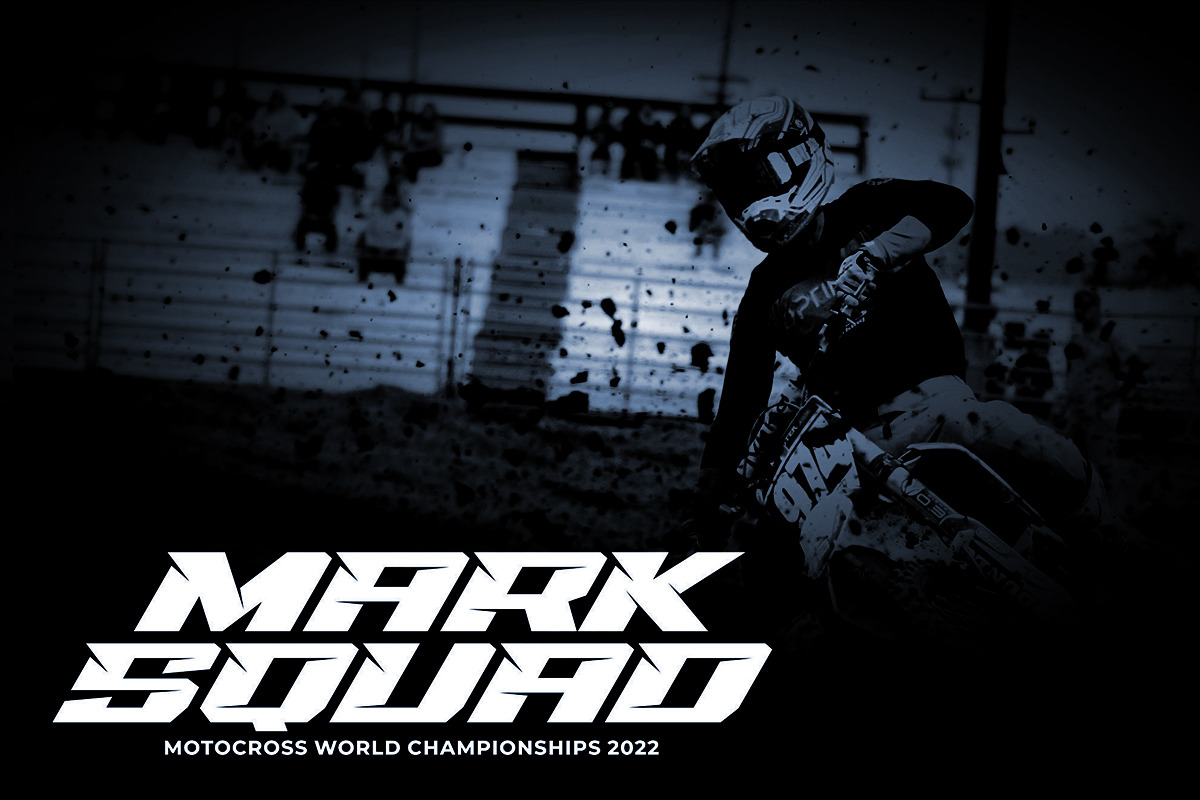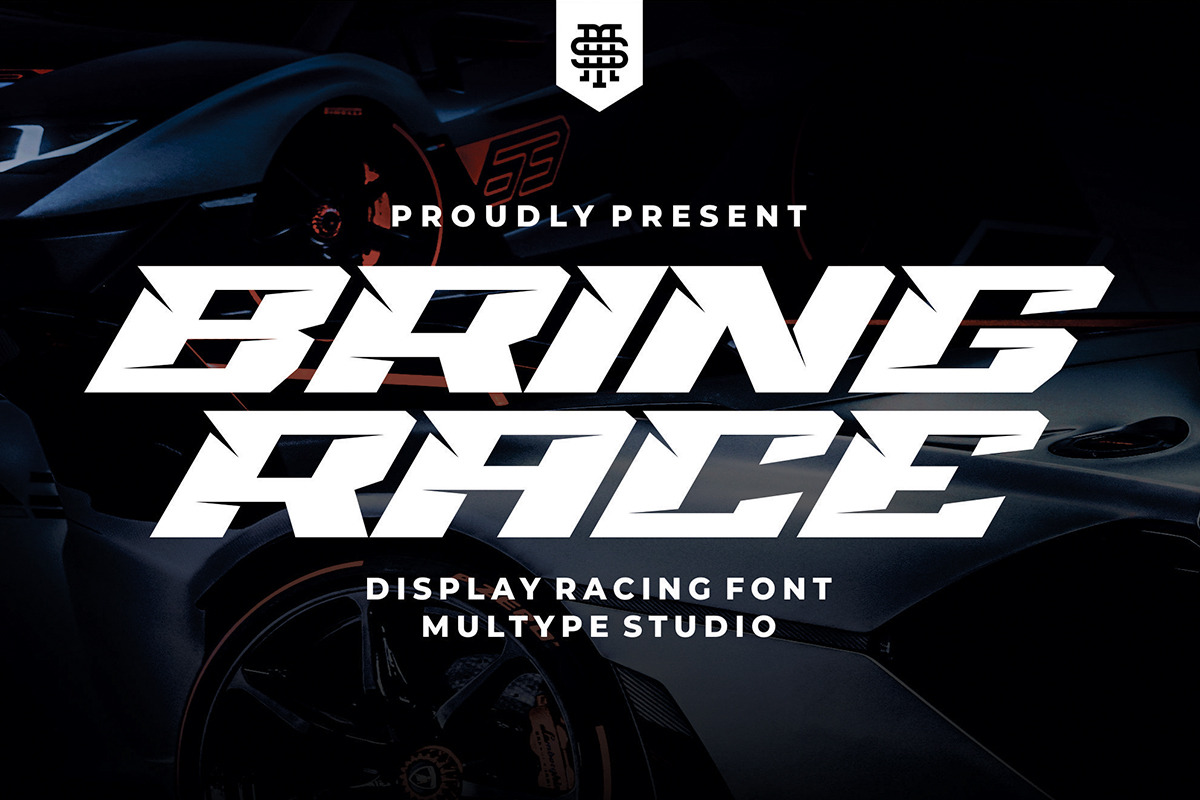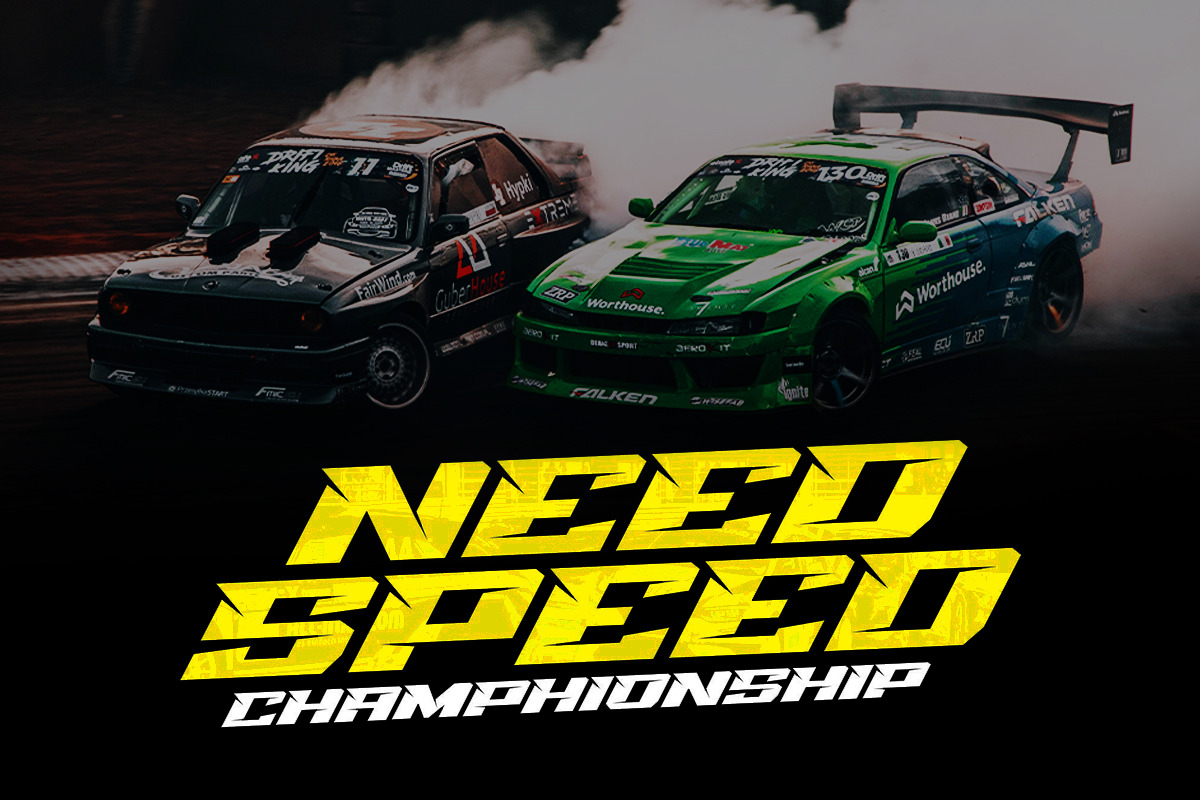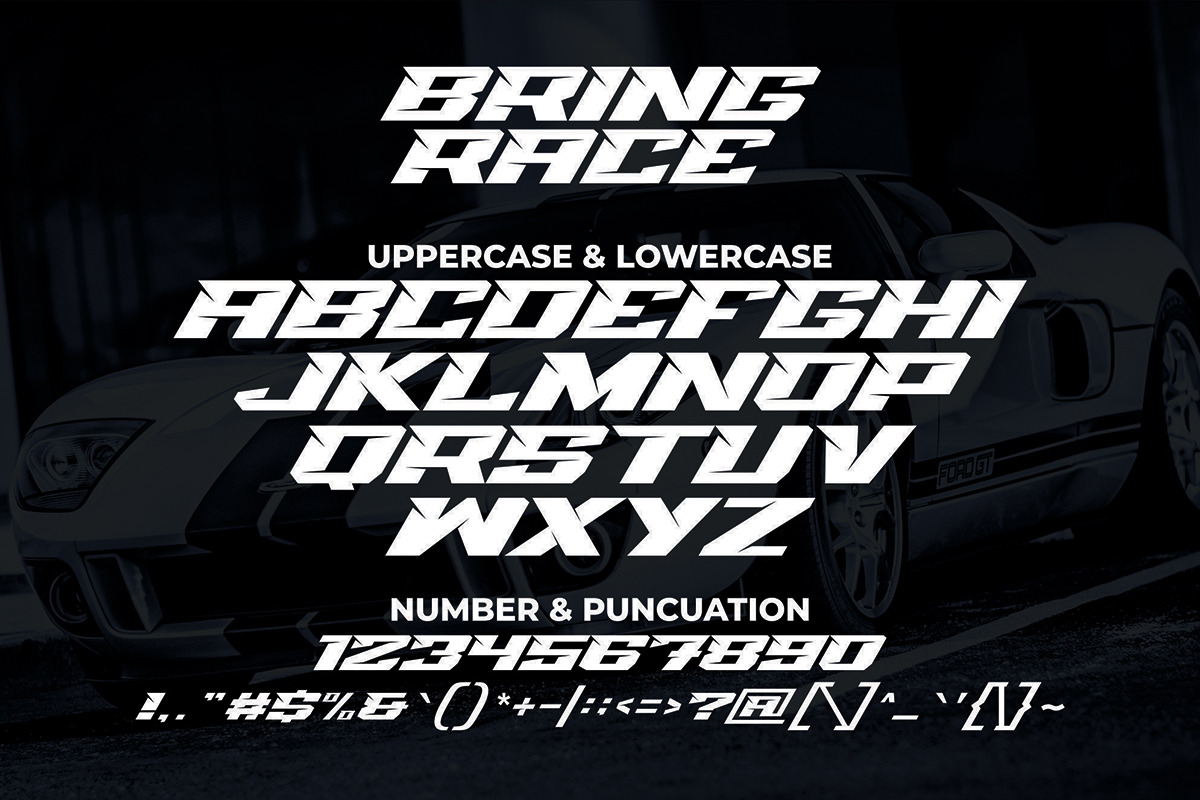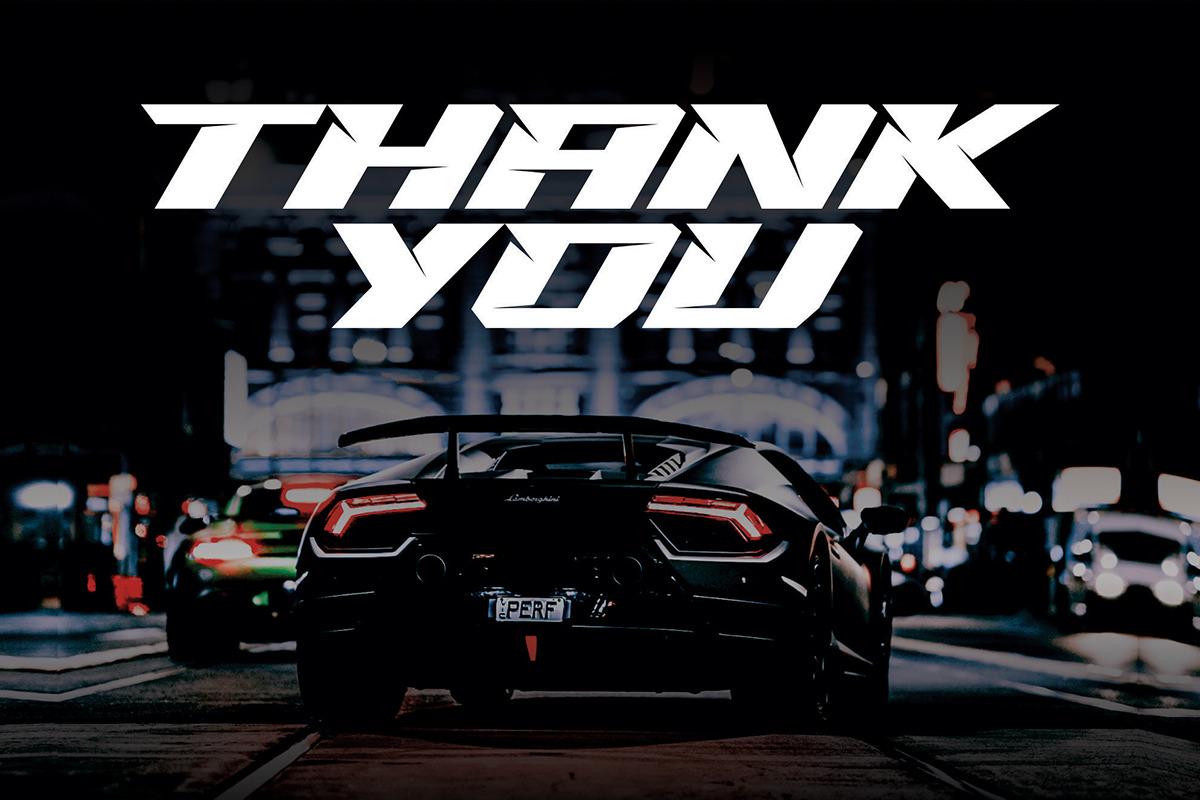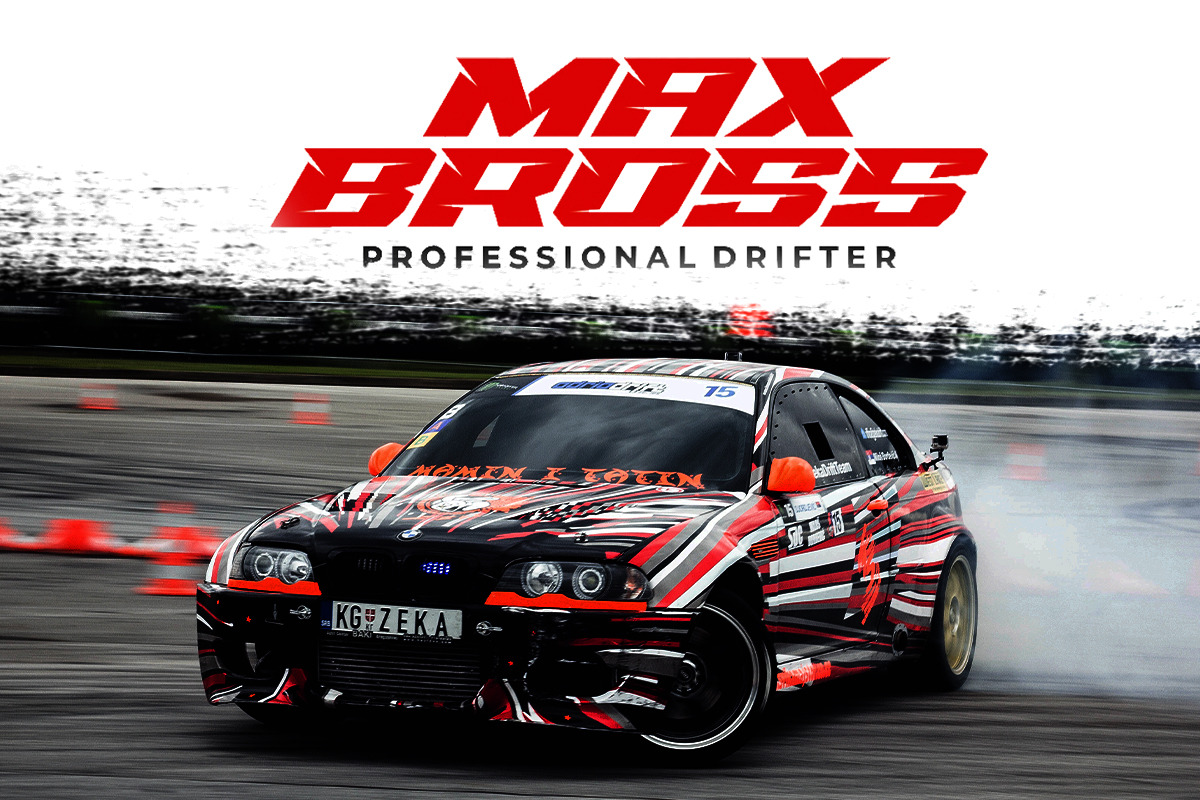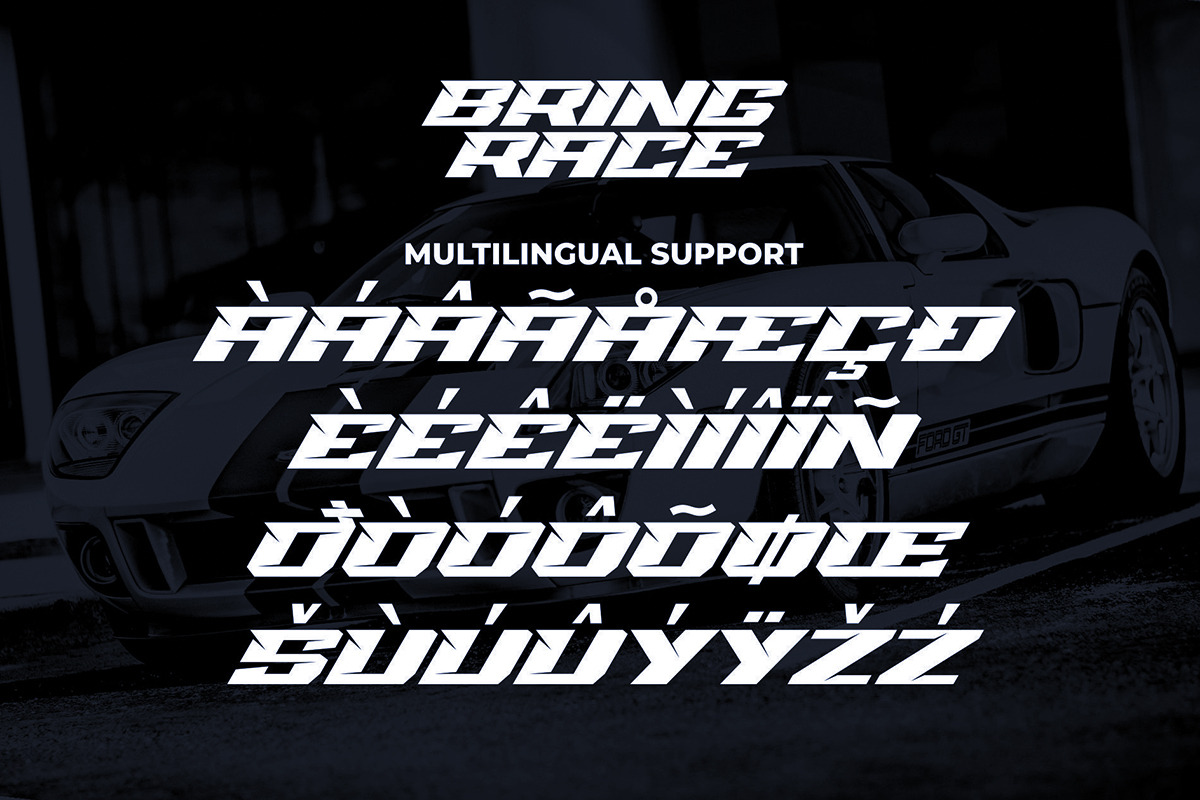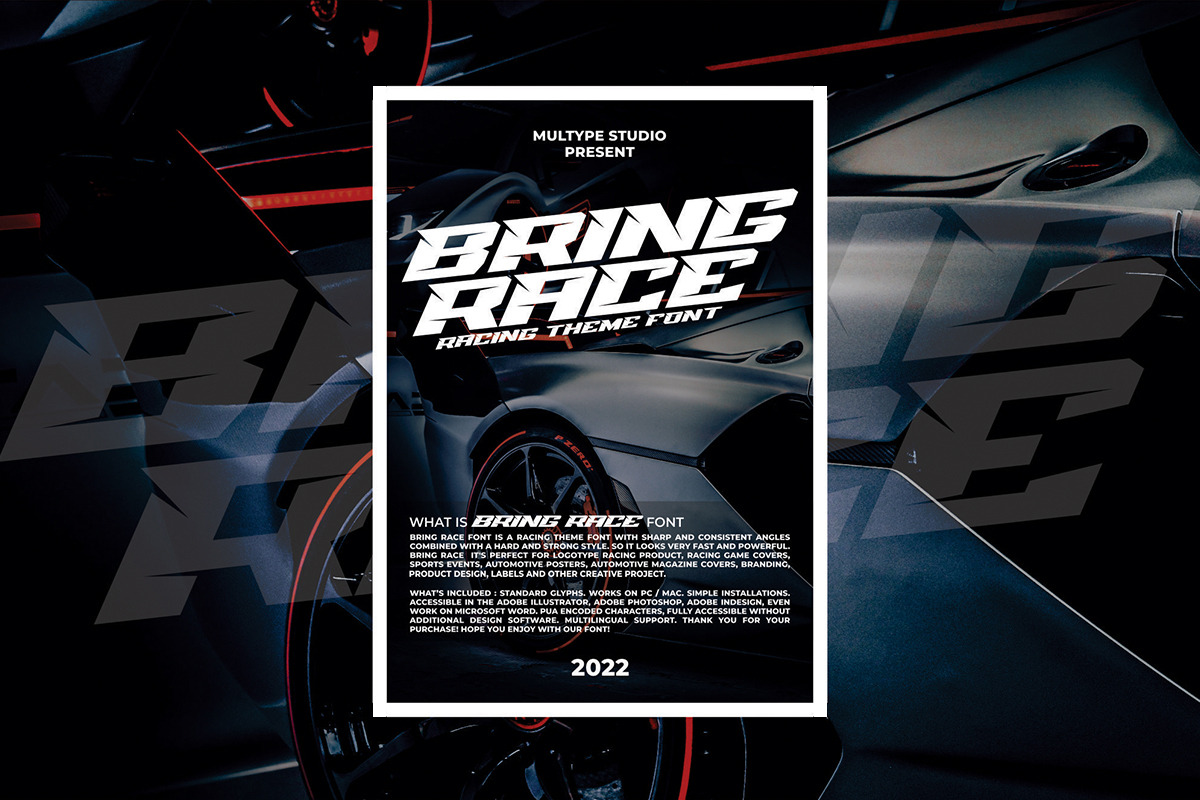
Bring Race Racing Font
Bring Race is a font with a race theme. With a strong style, consistent at sharp corners, but it will look good because it maximizes the shape to make it look strong, fast, and powerful.
Bring Race it's perfect for logotype racing product, racing game covers, sports events, automotive posters, automotive magazine covers, branding, product design, labels and other creative project.